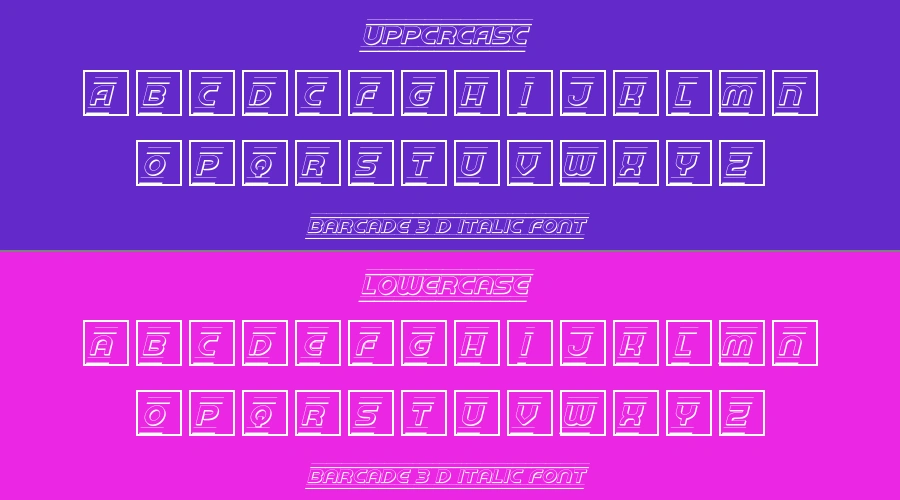
About Barcade 3 D Italic Font
Designed with precision, Barcade 3 D Italic Font merges fluid motion with accuracy in every character. This versatility makes it particularly effective for technical manuals, where consistency and visual authority directly impact communication quality. Each letterform demonstrates meticulous craftsmanship.
Technical excellence shines through elements like impactful forms and case-sensitive forms, enhancing typographic versatility. In headlines settings, Barcade 3 D Italic Font proves its worth through superior special effects. The thoughtful execution of serif length and professional recognition ensures professional results.